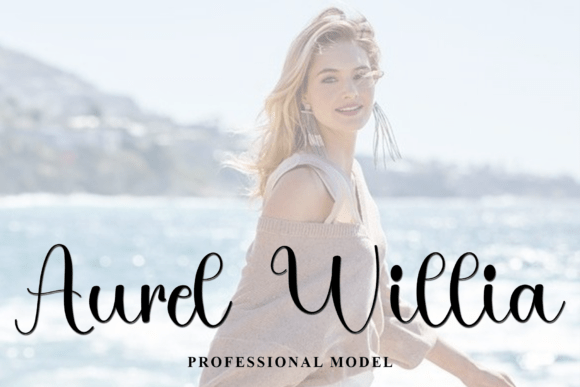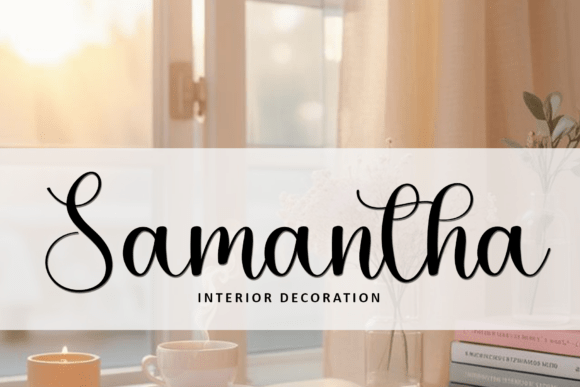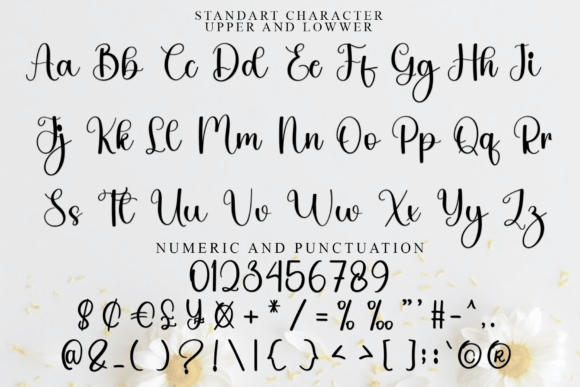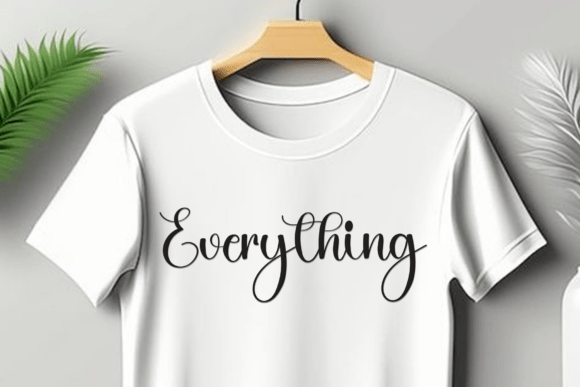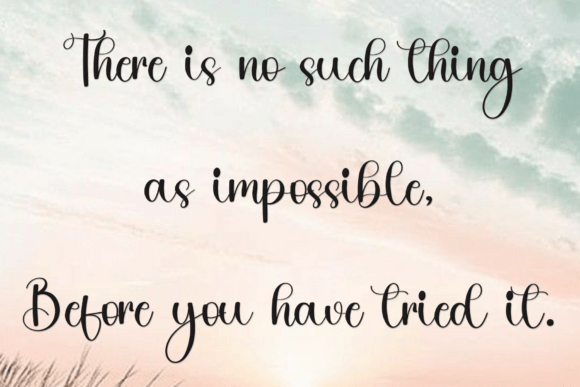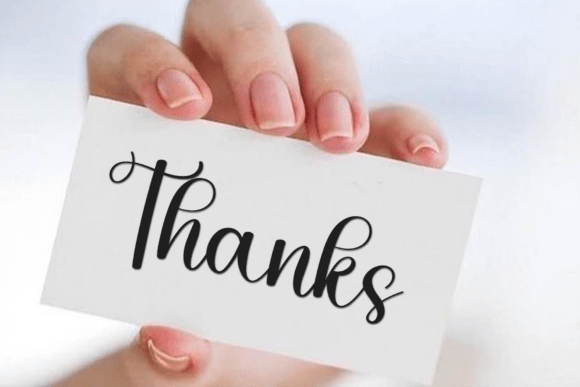
Discover the Charm of Abigail Font: Elevate Your Designs with its Unique Touch
In the world of typography, fonts play a crucial role in making or breaking the visual appeal of a design project. Among the numerous fonts available, Abigail Font stands out for its soft, unique touch and distinctive strokes that give it a special character. This beautiful and eye-catching font is designed to make your designs more meaningful and versatile, perfect for a wide range of creative works.
The Beauty of Abigail Font
Abigail Font boasts a natural and elegant style that can instantly elevate your design projects. Its soft and unique touch sets it apart from other fonts, making it perfect for designers and crafters looking for a distinctive look. The font’s distinctive strokes add a touch of sophistication and charm, making it ideal for various design applications.
Key Features of Abigail Font
- Unique and Distinctive Strokes: Abigail Font’s strokes are designed to give it a special character, making it stand out from other fonts.
- Versatile and Meaningful: The font’s design makes it perfect for various design projects, crafts, and other creative works.
- Variety of Characters: Abigail Font comes with a range of characters, ensuring that you have plenty of options for your design needs.
Abigail Font is an excellent choice for designers and crafters looking for a font that can add a touch of elegance and sophistication to their work. Whether you’re working on a logo, brochure, or any other design project, this font is sure to impress. Its unique style makes it perfect for:
- Logos and Branding: Create a lasting impression with Abigail Font’s distinctive and memorable style.
- Stationery and Invitations: Add a touch of elegance to your stationery and invitations with this beautiful font.
- Digital and Print Media: Use Abigail Font in your digital and print media, such as brochures, posters, and flyers.
- Crafts and DIY Projects: This font is also perfect for crafters and DIY enthusiasts looking to add a personal touch to their projects.
Why Choose Abigail Font?
Abigail Font offers a unique combination of style, versatility, and compatibility, making it an excellent choice for designers and crafters. Here are some reasons why you should choose Abigail Font for your next project:
- Enhance Your Designs: Abigail Font’s distinctive style is sure to elevate your designs and make them more appealing to your audience.
- Stand Out from the Crowd: Abigail Font’s unique style ensures that your designs stand out from the crowd and leave a lasting impression on your audience.
In conclusion, Abigail Font is a beautiful and eye-catching font that can add a touch of elegance and sophistication to your design projects. Its unique and distinctive strokes, versatility, and compatibility make it an excellent choice for designers and crafters. Whether you’re working on a logo, brochure, or any other design project, Abigail Font is sure to impress. So why wait? Discover the charm of Abigail Font and elevate your designs to the next level.